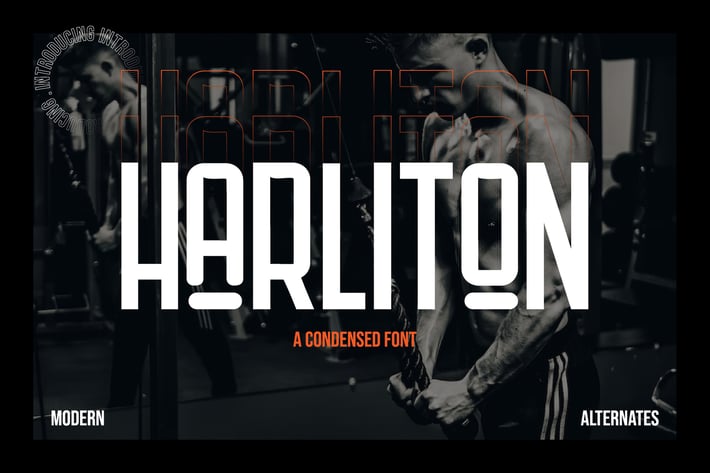
Harliton - Condensed Font
Looking to make a statement with your design? Bold, memorable projects deserve bold, memorable fonts.
Introducing Harliton - A Condensed Font.
Offline or online, Harliton makes your brand noticed. Whether you’re making ads, merch, apps, or websites, this font will fit right in. Give it a go and see how a great font transforms your project.
Multilingual & Ligature Support
Full sets of Punctuation and Numerals